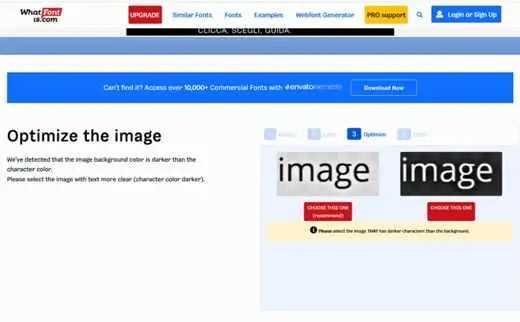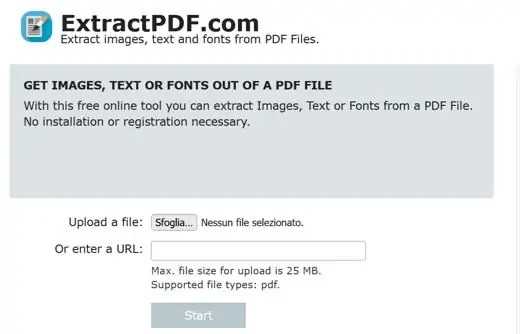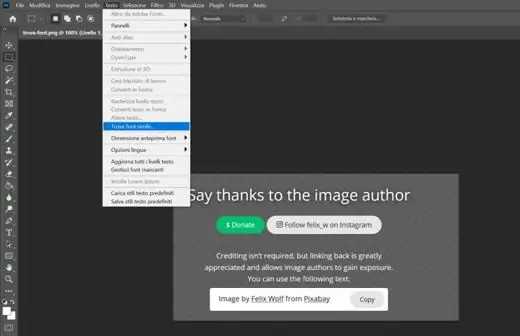
How to recognize a font that you may have found on the web may perhaps seem like a mere exercise in style, in reality, you must know that the applications related to the correct identification of a character are not as obvious as you can generally think.
Did you know, for example, that font is one of the parameters that marketing agencies take into consideration before starting a sponsorship campaign for a service or product?
How do you say? On this specific topic, your knowledge is not so developed that you can make a choice in total autonomy? We are there for these events, and you will see that after reading our guide, you will surely have much clearer ideas.
Are you ready? Let’s start then.
3 sites to try if you need to recognize a font accurately
How to recognize a font if you don’t even know where to start looking? It is a question that you might ask yourself and that, in fact is completely logical, luckily for you, you will no longer have to go desperately looking for that font you spotted long ago and whose name you do not remember.
Today, there are specialized sites with which you can carry out specific searches clearly and effectively. Let’s see the main ones.
WhatTheFont
WhatthefontWhatTheFont is one of the most renowned and used solutions by anyone who wants to identify a particular font.
The great advantage of this service is that it is configured as a web application, which means that you will not need to download any specific software or programs at all; you just need to use its online function.
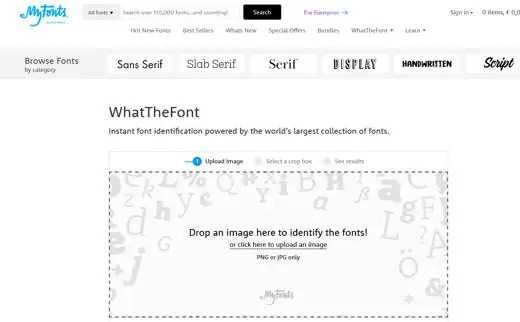
Specifically, its operation consists in scanning images in JPG or PNG format, possibly with a size not exceeding 2 MB. The service will take care of the analysis of the uploaded photo, and after a short search, it will return the result related to the font, really fantastic, isn’t it?
If you want to try the service or have an urgent need to try the service, connect to the official website and from the homepage proceed with the upload of the file you want to be scanned; alternatively you can also simply drag it to the space provided.
But what if the image has different characters and your interest is only in one of them?
Don’t worry, WhatTheFont comes with a special editing feature by which you can highlight even a single word and let only that actually be scanned.
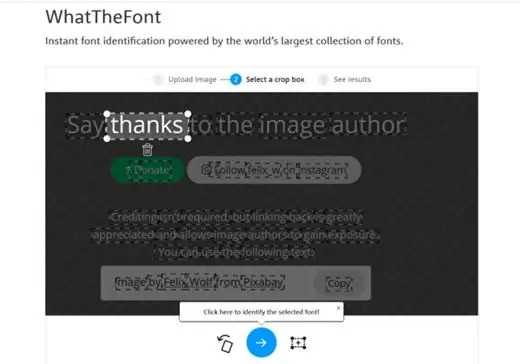
To do this, simply select the chosen word, click on the arrow icon and wait for the analysis to complete. The scan will produce a list of fonts sorted by probability, among which surely there will be just what you are looking for.
WhatthefontThis service was also created as an app; in fact it is available for both Android and iOS devices.
Font Matcherator
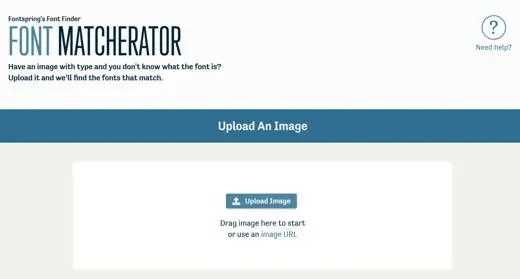
Font Matcherator is another really great font recognition service that comes with surprisingly user-friendly features.
Like the previous one, here too we are faced with a type of web application that works by uploading a scanned photo or the ability to directly drag the image into the space designated for recognition.
The service editor is handy and will allow you to select only a specific character among all those present in a given file.
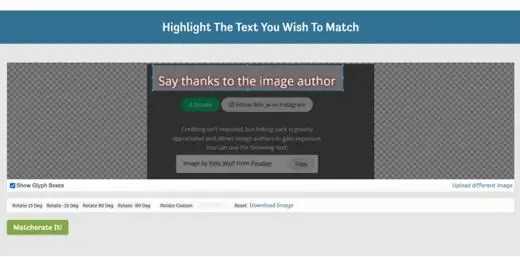
After proceeding with the upload, you will need to click on the Matcherate it button and wait for the analysis in progress to complete.
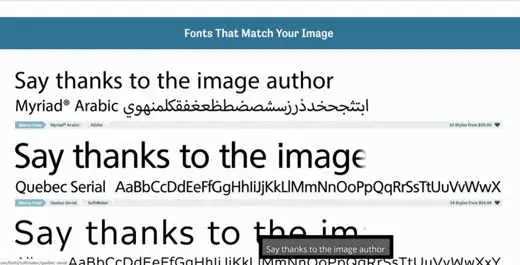
The results obtained will be returned according to an order of probability and similarity with the original character. Finally, the idea of being able to compare the original image and the result obtained so as to facilitate the identification process, also thanks to the visual aspect, is truly excellent.
What Font Is
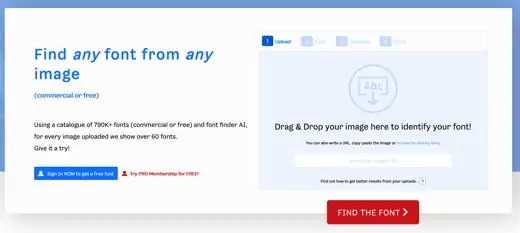
The last service we are going to see is called What Font is, and like the previous ones, it follows a purely online operating logic.
The choice is yours; however, it must be said that even in the free version, it is excellent.
Let’s see how it works.
To use it, you will first need to connect to the official website. Directly from the homepage, upload the image by clicking on Browse by clicking here, or simply drag it into the space called Drag and drop image here to identify your font.
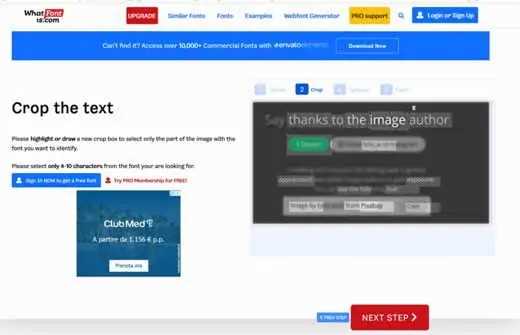
The choice of proposing the analysis of a photo taken directly from the internet without having downloaded it first was definitely appreciated. To take advantage of this feature, you will first need to copy and then paste the URL in the Specify a URL space instead.
In general, however, it can be said that among the essential characteristics to recognize a quality font there are:
- The total amount of glyphs makes the font flexible and adaptable to a thousand uses.
- The presence of multiple weights is capable of creating specific textual hierarchies.
- The good presentation of the diacritics.
- The homogeneity of the graces.
- The presence of variations in style.
- Excellent space management.